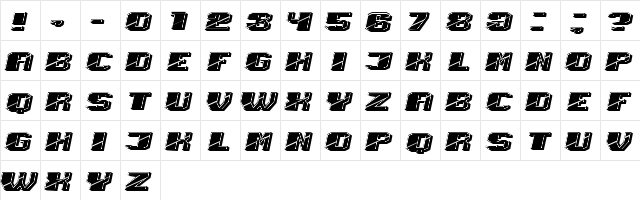
Unboxing Filled Regular
Design Context for Unboxing Filled Typeface
Unboxing Filled is a composed and adaptable typeface that performs quietly and consistently across a wide range of design contexts.